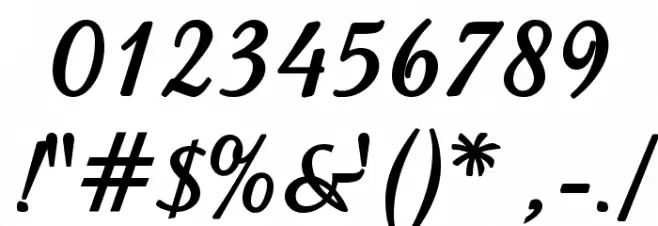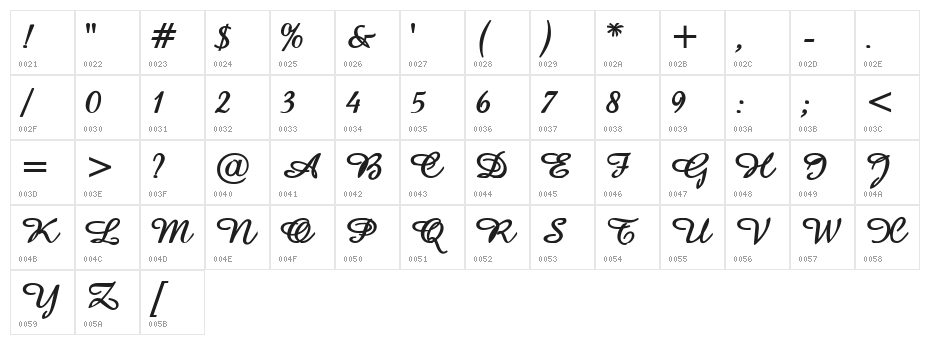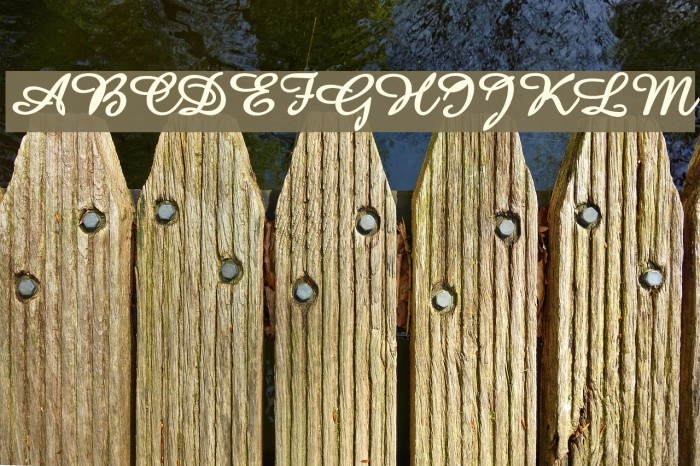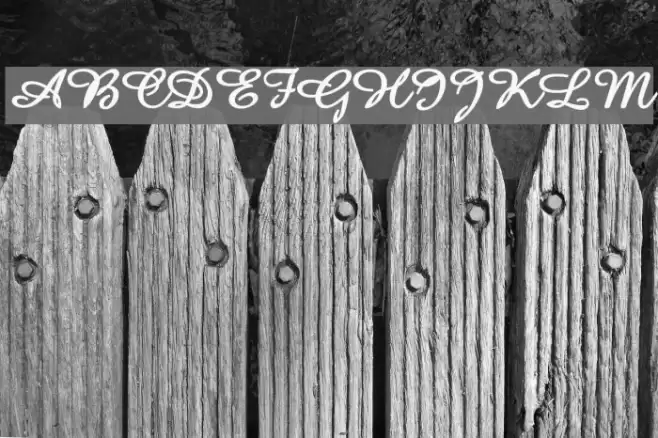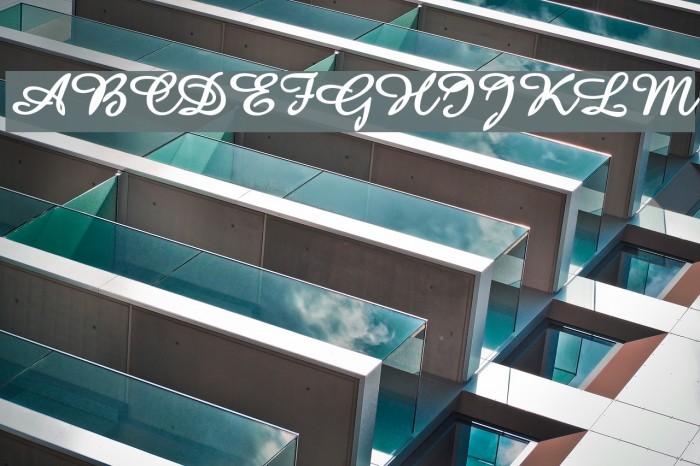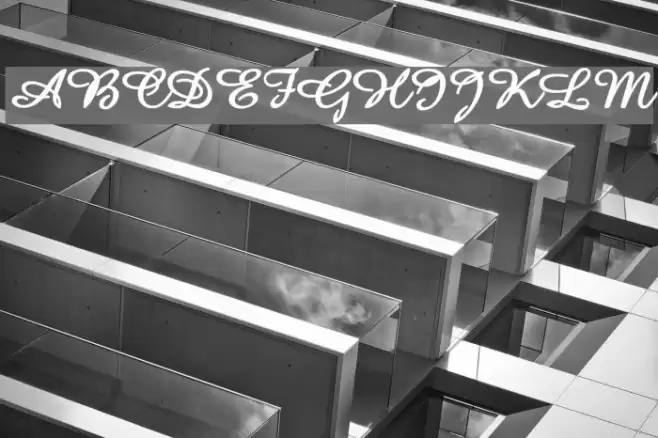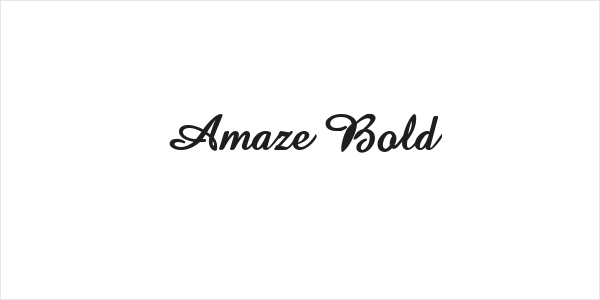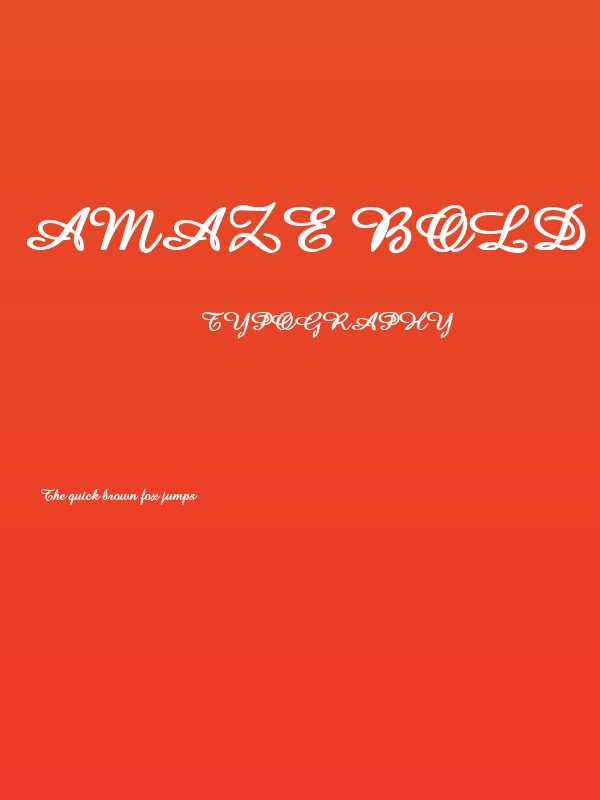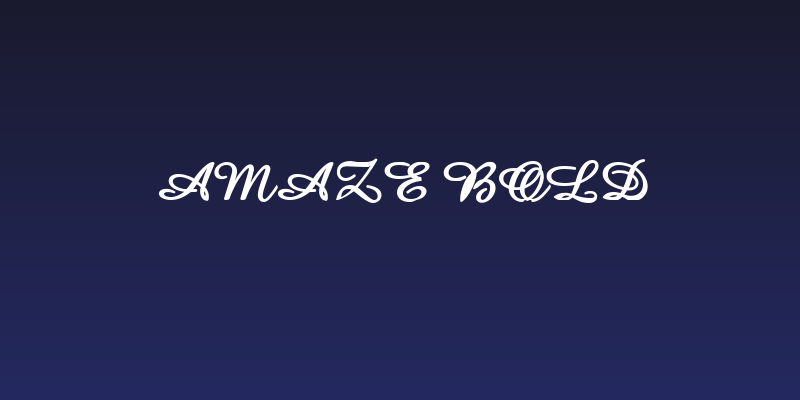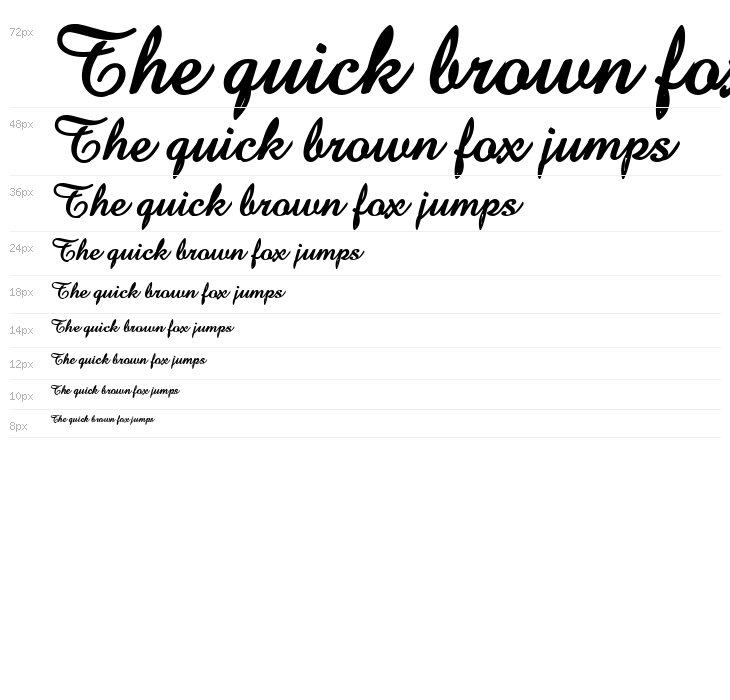
Amaze Bold Font
Amaze Bold Description
This font features a bold and expressive script style, characterized by its flowing, cursive letterforms. The uppercase letters exhibit a dramatic flair with sweeping curves and loops, while the lowercase letters maintain a consistent, smooth flow. The numbers are equally bold, maintaining the script style with clear readability. Special characters are integrated seamlessly, matching the overall aesthetic. The font's bold weight and dynamic style make it ideal for creating impactful designs that require a touch of elegance and sophistication.